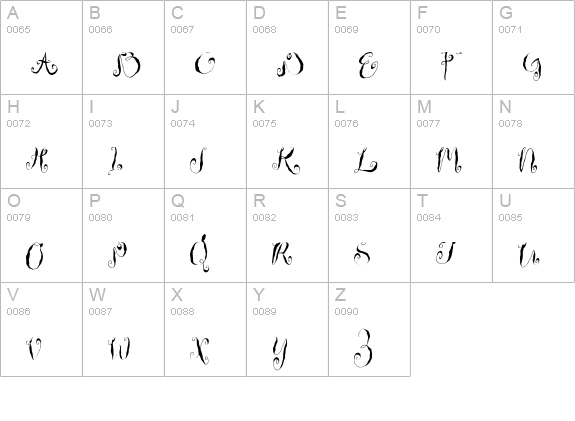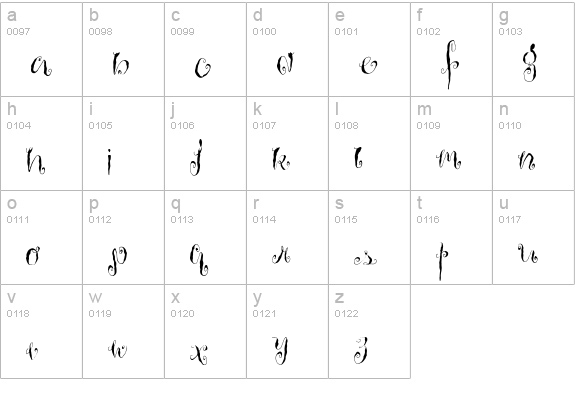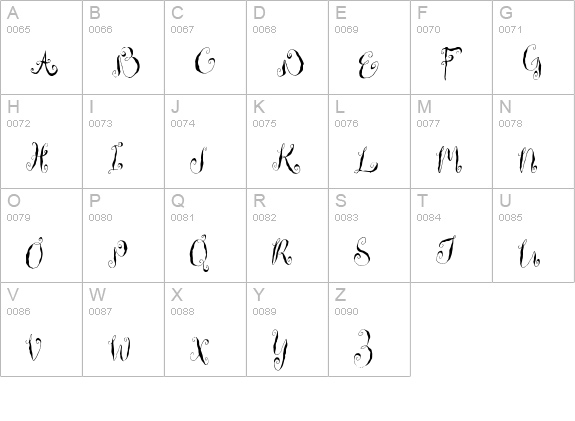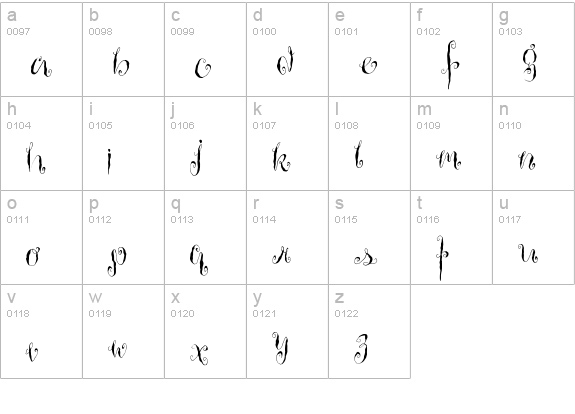
HousemaidAlternate Font Details
HousemaidAlternate font is a charming and versatile typeface that brings a unique touch to any design project. With its elegant and stylish alternate characters, this font adds a touch of sophistication and creativity to your creations. Whether you are designing invitations, logos, or posters, HousemaidAlternate font is sure to make a statement. Best of all, HousemaidAlternate font is available for free download at FontsMarket.com. This means you can easily access this beautiful font and use it in your projects without any cost. Don't miss out on the opportunity to enhance your designs with this stunning font - download HousemaidAlternate font today and let your creativity shine!